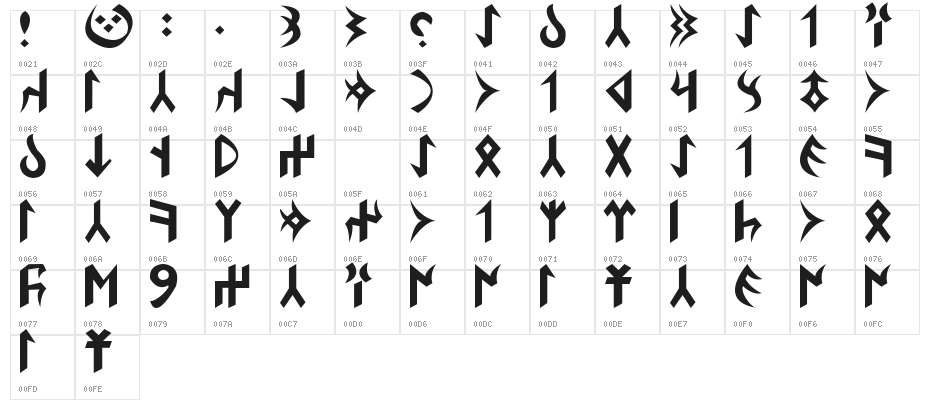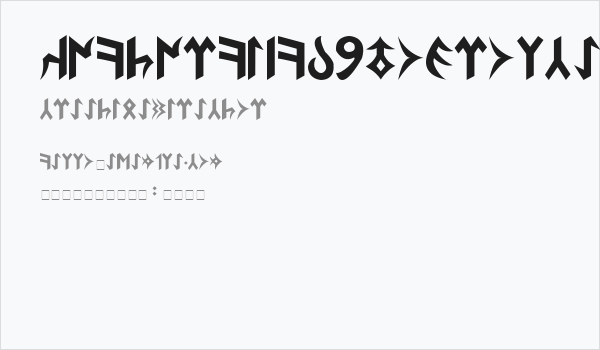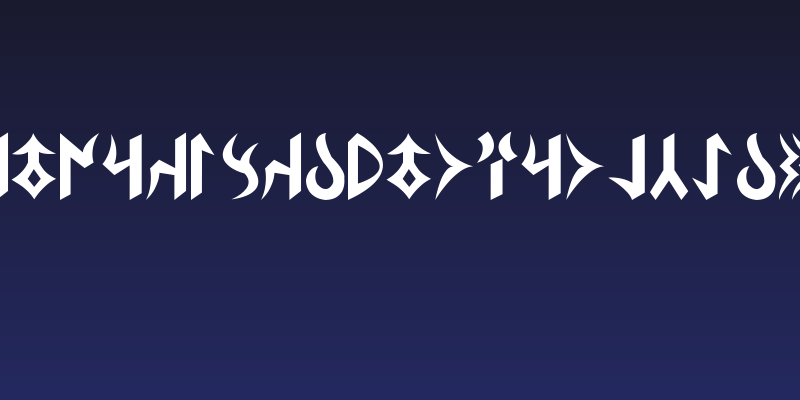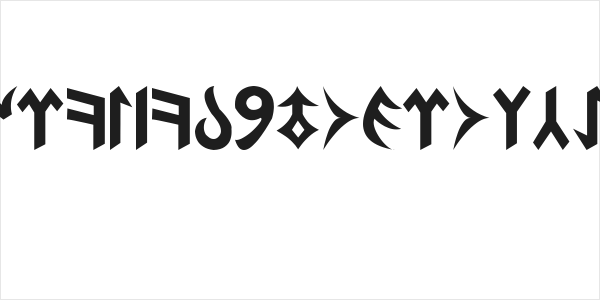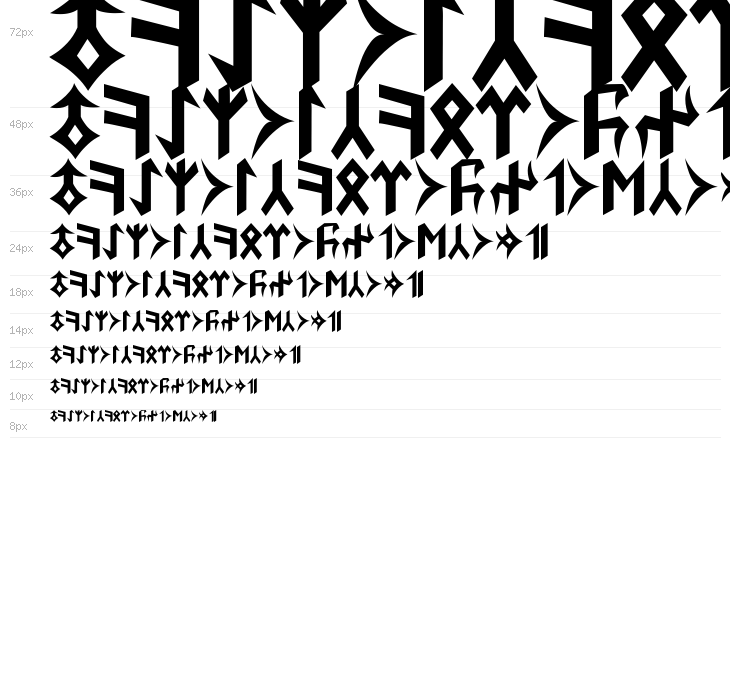
Köktürkish By Tugrul Çavdar Font
Köktürkish By Tugrul Çavdar Description
This font features a bold and angular design, reminiscent of ancient scripts with a modern twist. The characters are highly stylized, with sharp edges and geometric forms that create a sense of movement and energy. The font lacks traditional curves, opting instead for pointed and intersecting lines that give it a unique, almost futuristic appearance. The overall aesthetic is both decorative and assertive, making it stand out in any context. The characters are evenly spaced, ensuring readability despite their complex forms.
| Overall Style | Futuristic, Decorative |
| Proposed Projects | Ideal for projects requiring a unique and striking visual impact, such as video game titles, sci-fi movie posters, or branding for tech companies. |